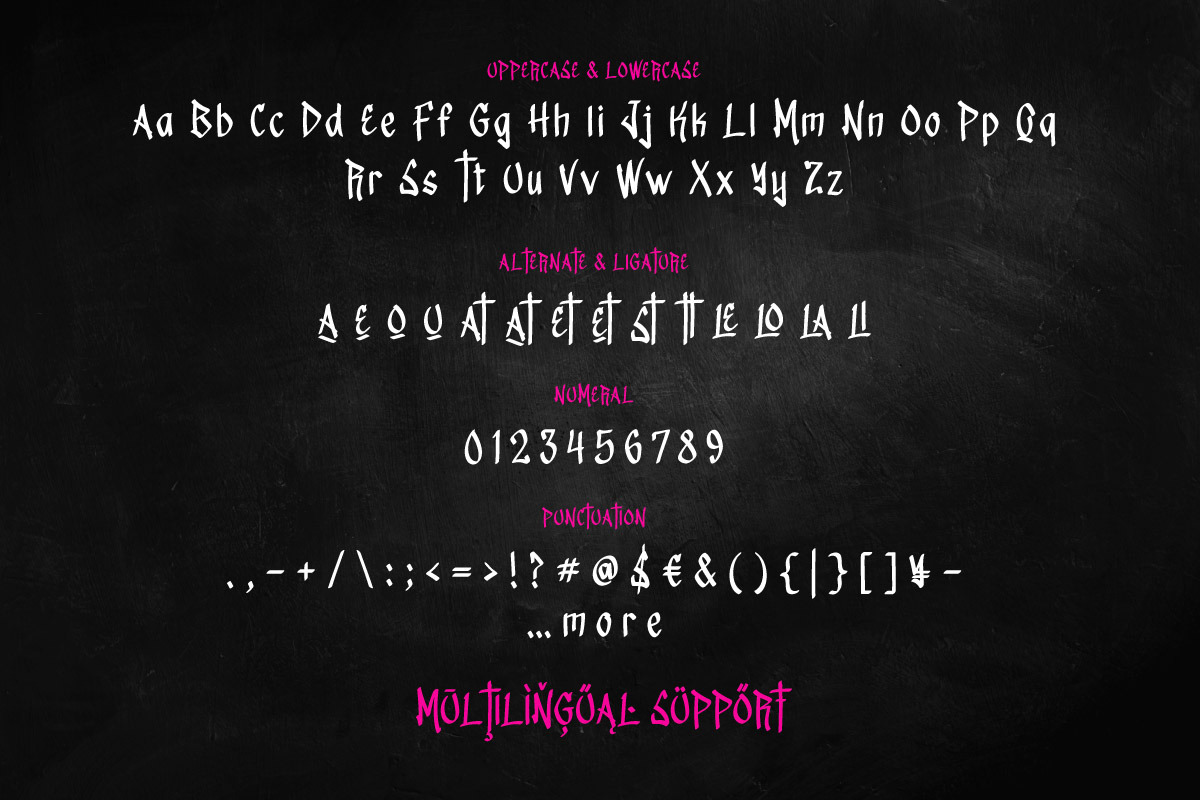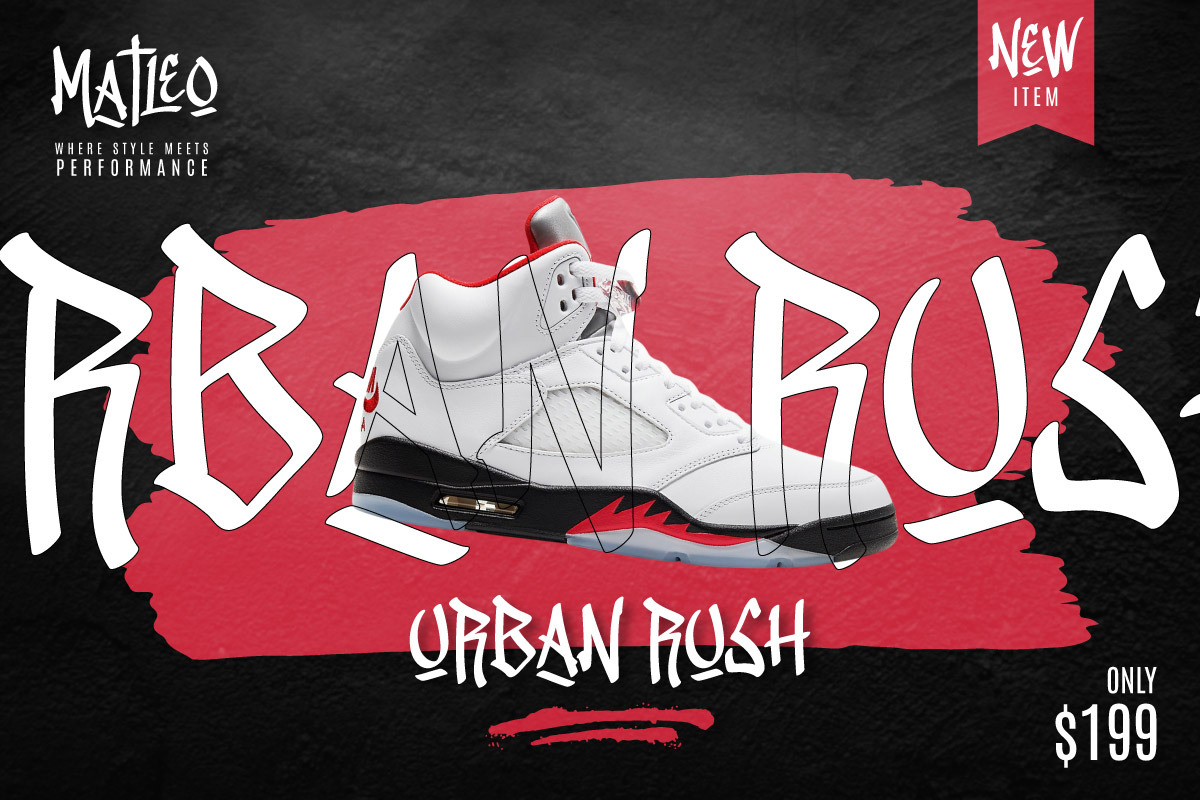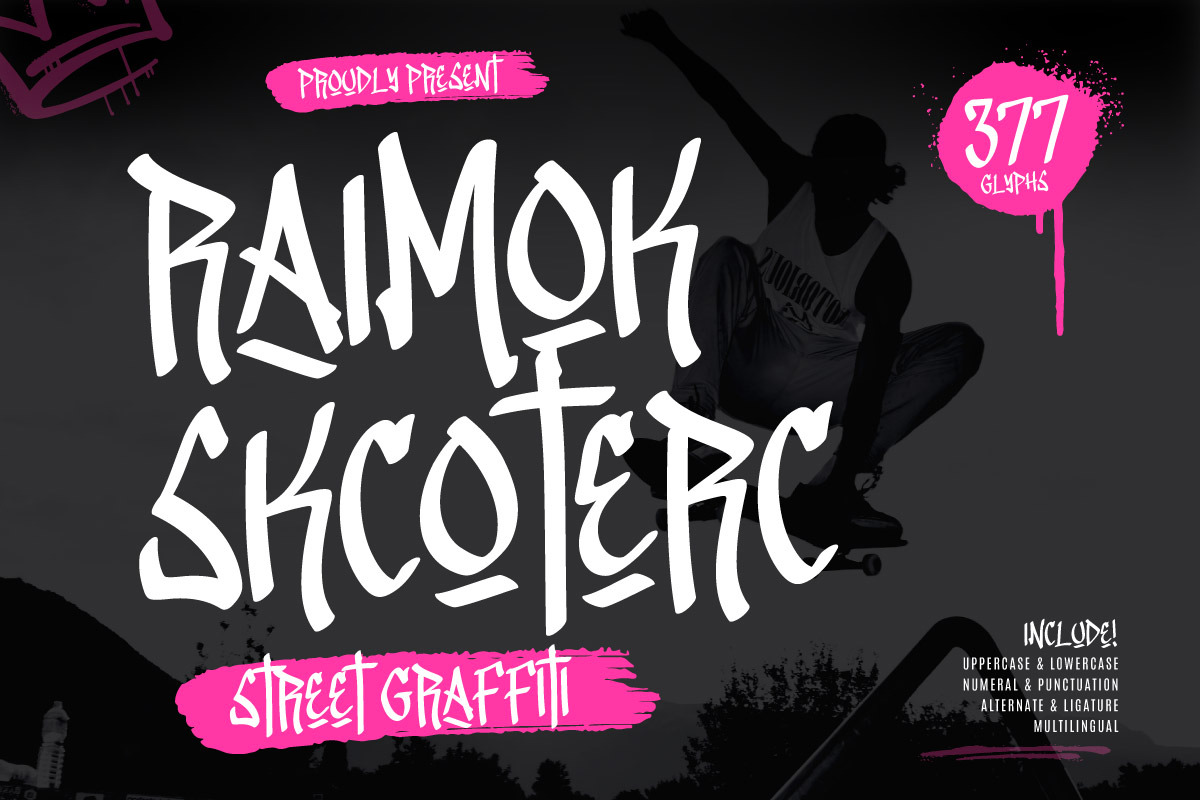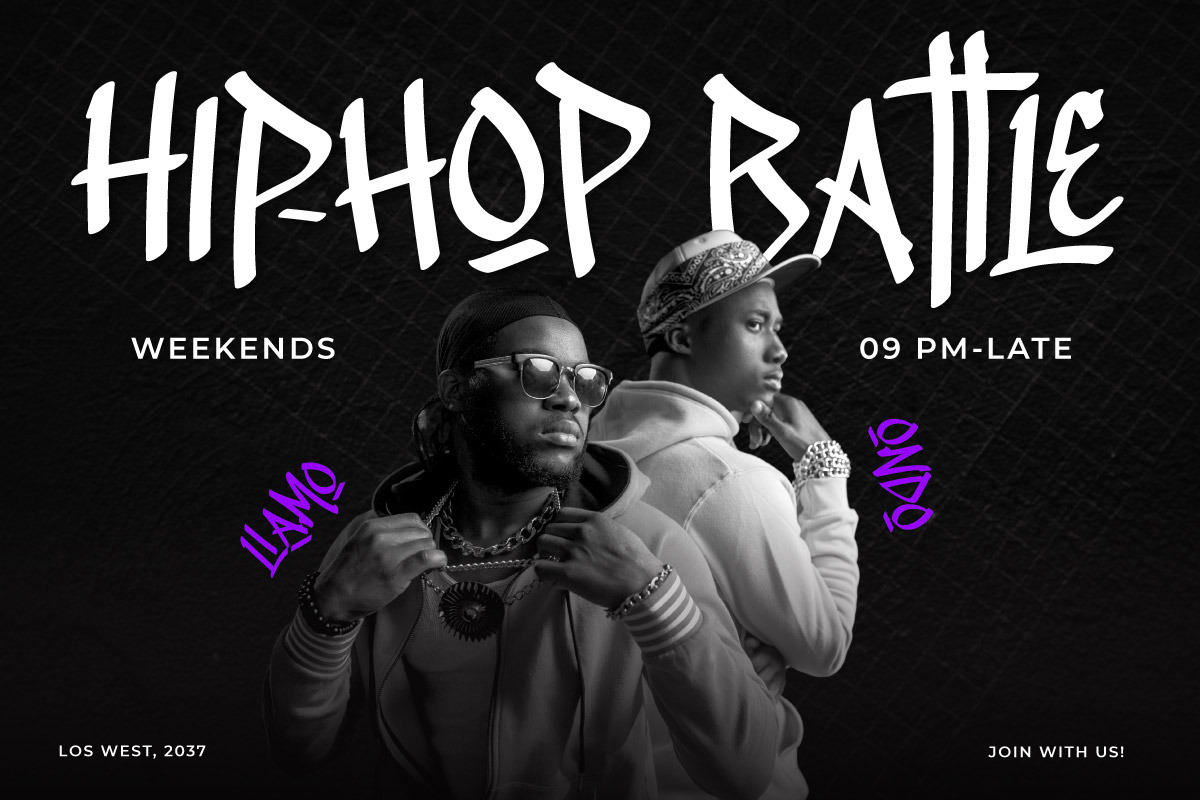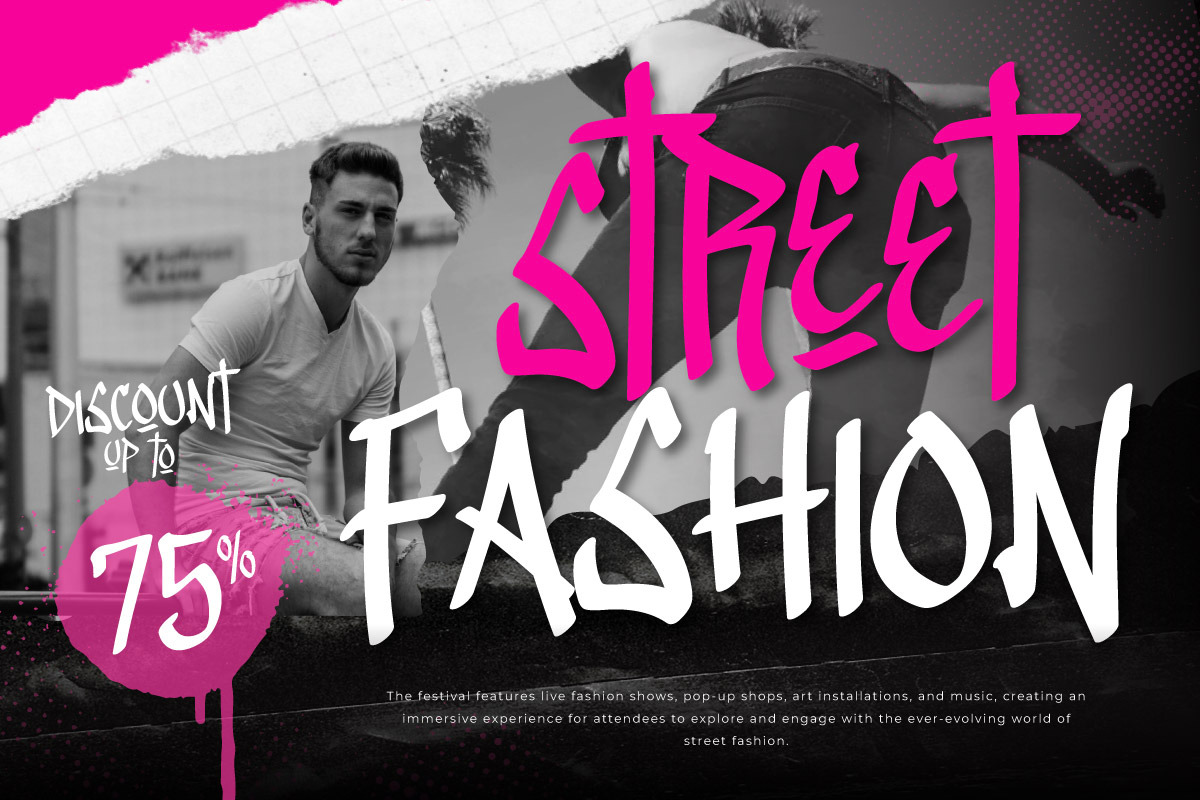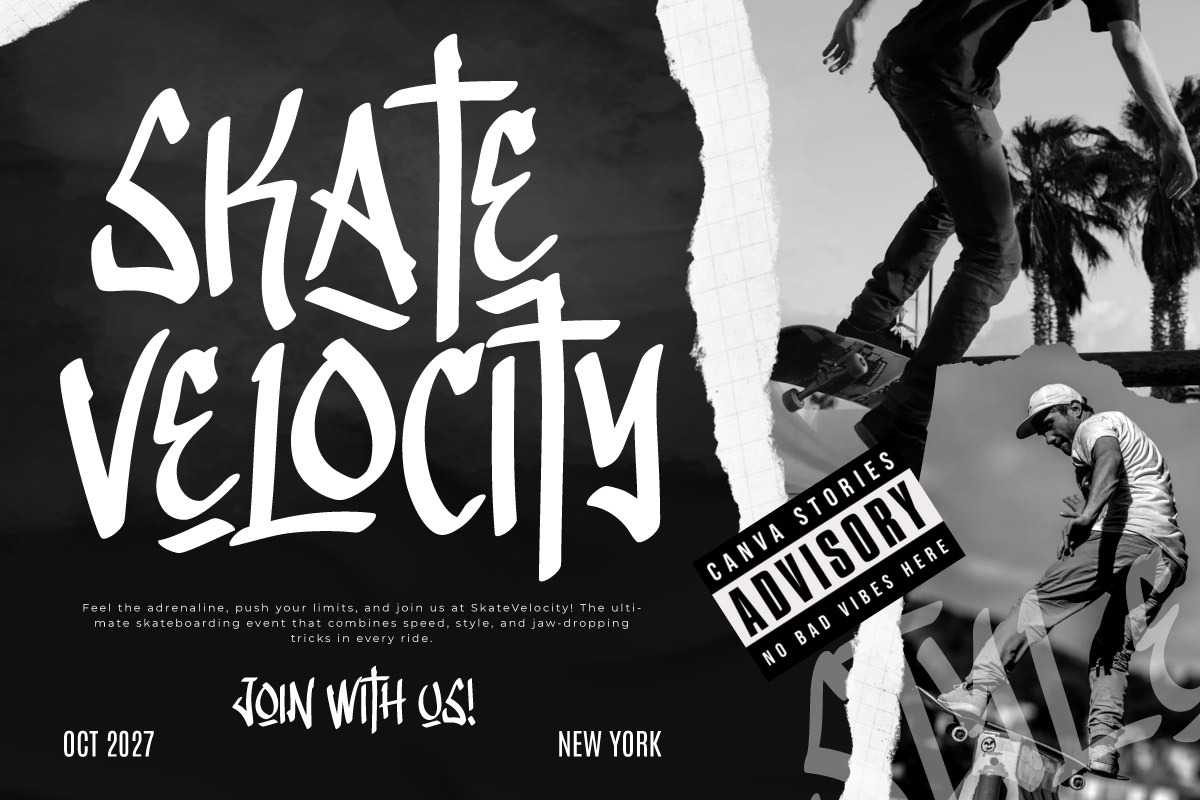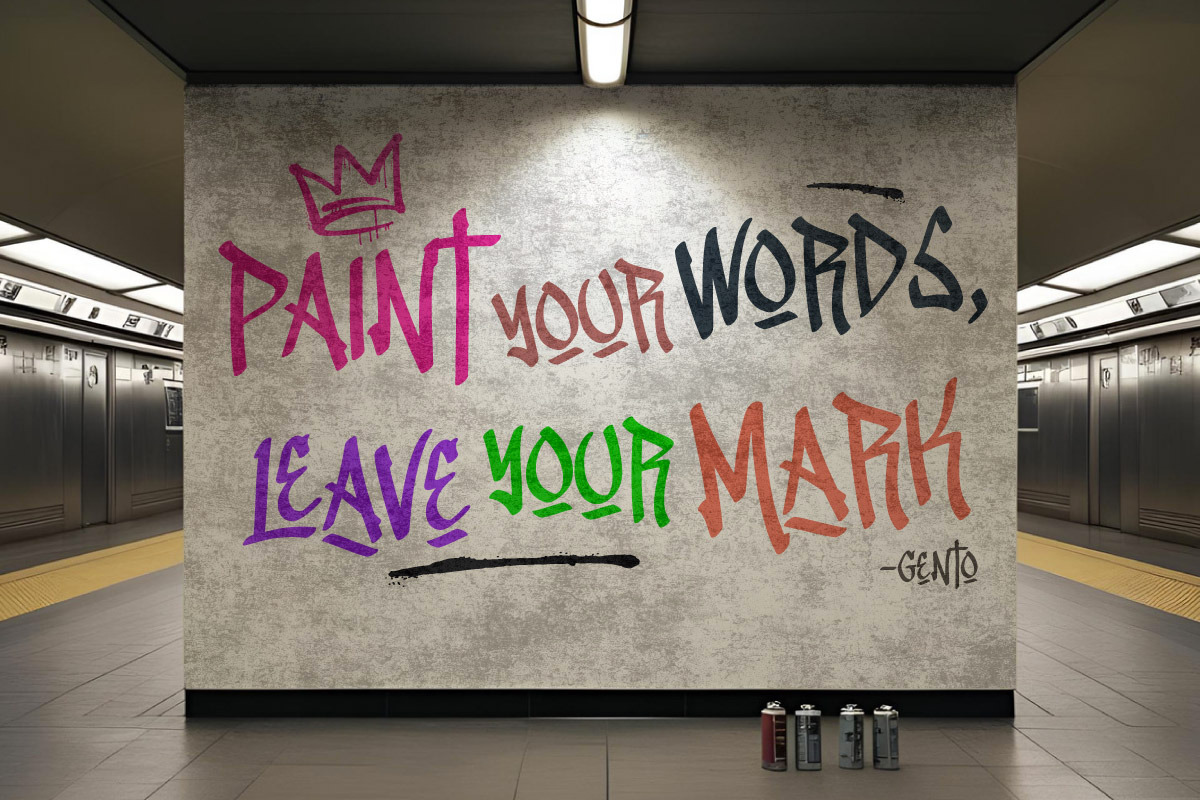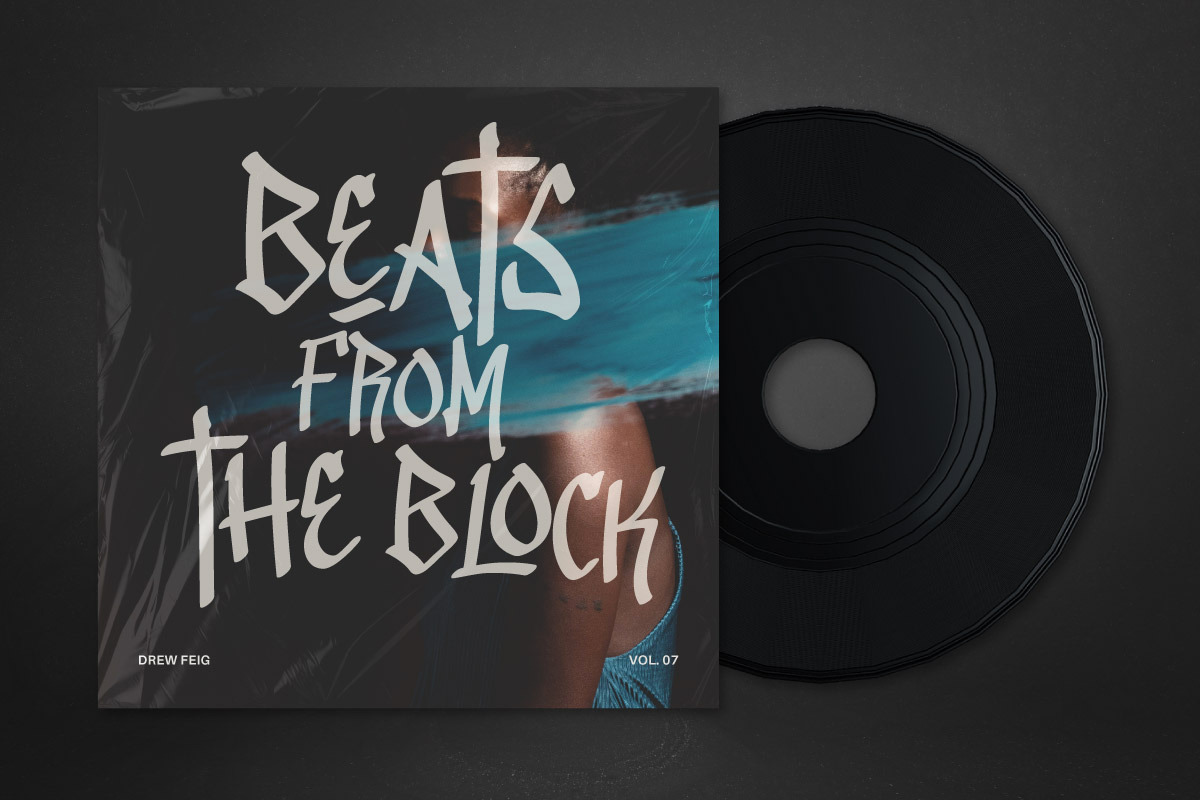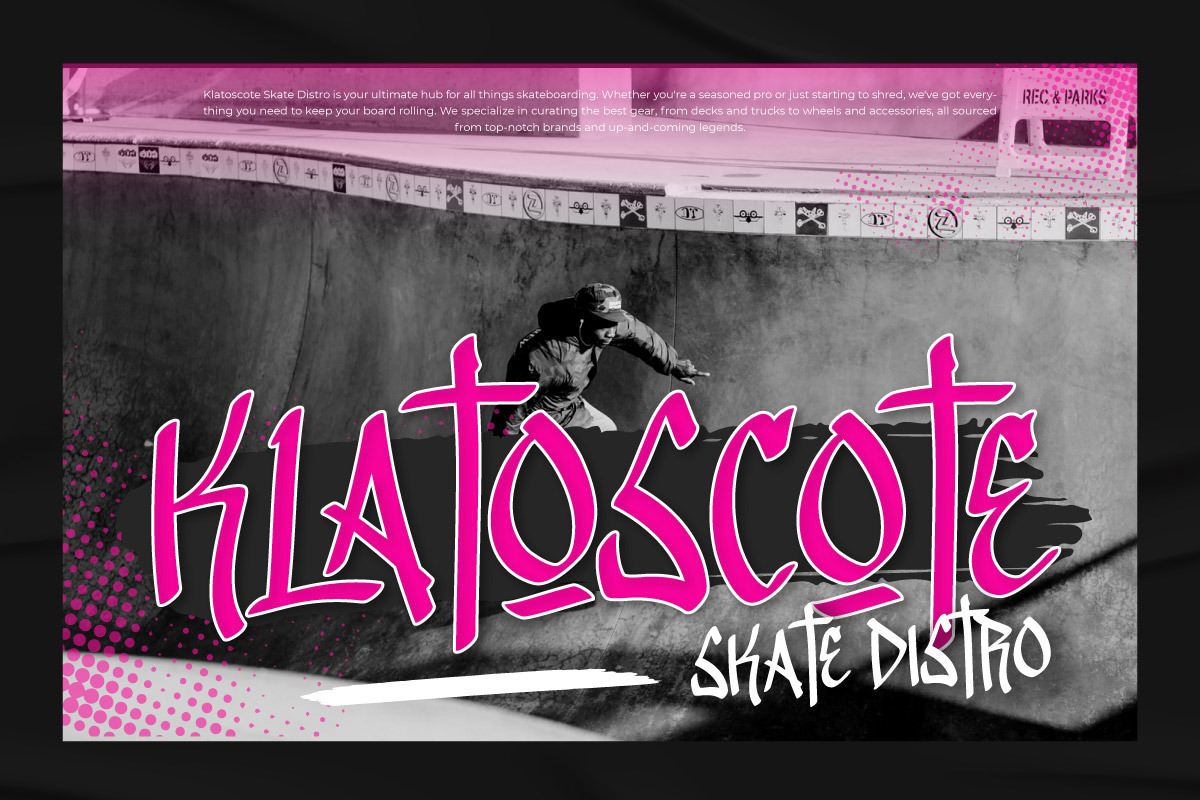
Raimok Skcoterc - Graffiti Font
Raimok Skcoterc is a bold and rebellious street graffiti font that captures the raw energy of urban expression. Designed with sharp lines, edgy curves, and dynamic strokes, this font embodies the spirit of street art—unfiltered, powerful, and full of personality. Perfect for designers who want to inject a dose of attitude and authenticity into their work, Raimok Skcoterc works beautifully in posters, album covers, skate culture branding, streetwear designs, and more.
This font offers a strong visual punch while remaining legible, making it ideal for both digital and print projects. Whether you're creating promotional materials for an underground event, designing a gritty logo, or adding street vibes to a social media post, Raimok Skcoterc delivers impact with style. Let your creativity run wild and paint your message loud with this expressive graffiti typeface.